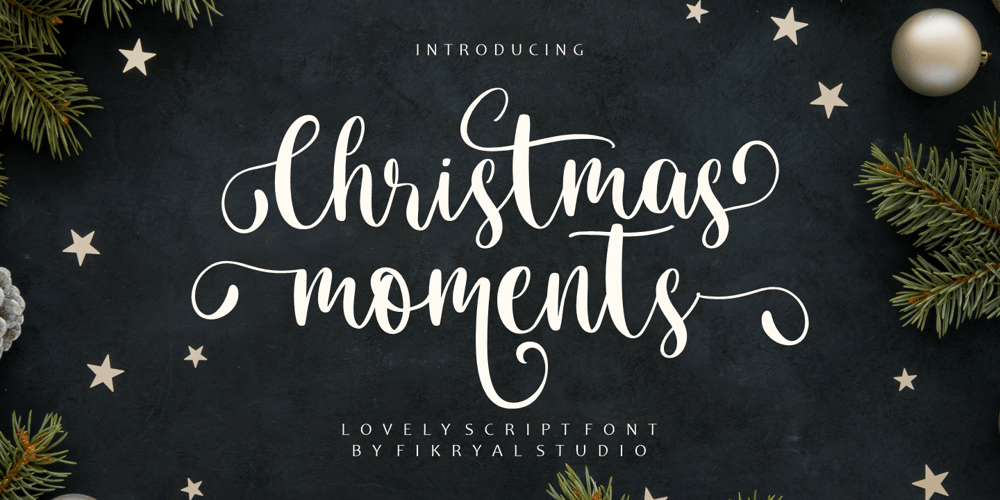
Christmas Moments
Christmas Moments font
Christmas Moments Font Family was designed by Muhammad Fikry and published by Fikryal. Christmas Moments contains 1 styles and family package options. Christmas moment is a hand brush font perfect for crafting, branding, invitation, stationery, wedding designs, social media posts, advertisements, product packaging, product designs, label, photography, watermark, special events, or anything.Christmas moment comes with a full set of uppercase and lowercase letters, ligatures, multilingual symbols, numerals, and punctuation.